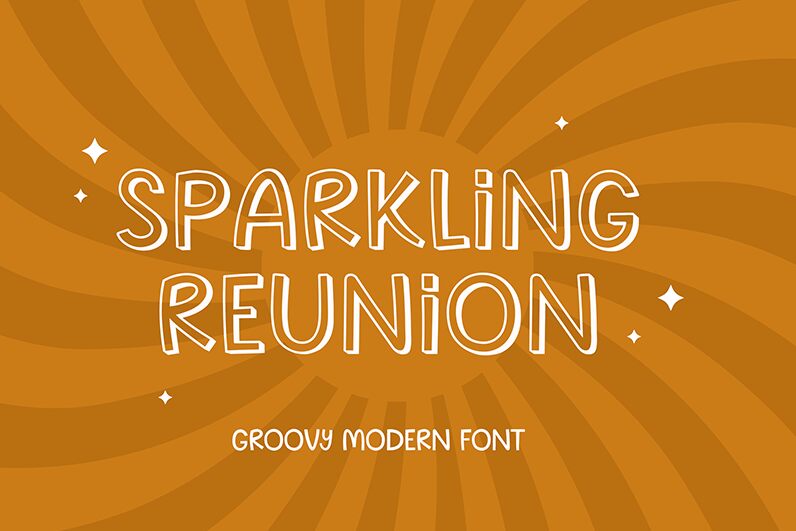
SparklingReunion Regular
Sparkling Reunion font by UI Creative is a free cartoon display typeface that looks like it’s been doodled right onto the page with a fine black pen. Each tall, narrow letter is wrapped in a playful double outline, with tiny starbursts and sparkles popping off the strokes, giving it a bubbly, celebratory feel. The forms stay clean and legible despite all the glittery detail, so you get loud, festive energy without sacrificing readability.
Using Sparkling Reunion, this free font shines on birthday invitations, kids’ party posters, classroom decor, playful logos, craft packaging, and YouTube thumbnails. It thrives in big, bold titles where the twinkling details can really show, while simpler sans-serif text beneath keeps everything easy to read. Try pairing Sparkling Reunion in all caps with a soft rounded sans in smaller sizes to create a fun, friendly hierarchy that still feels polished.